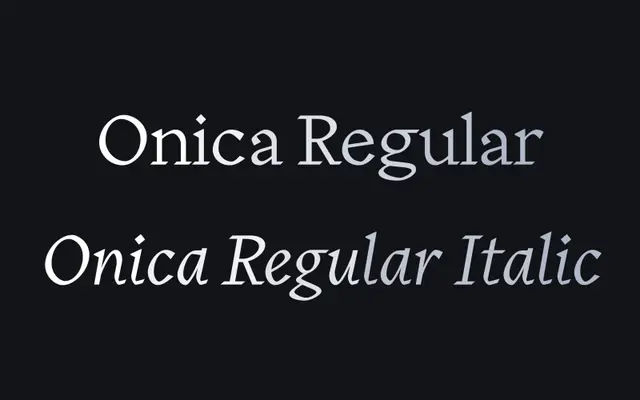
Onica specimen from The Designers Foundry
A calligraphic serif by Sanghyun Park that fuses asymmetrical slab serifs, sharp terminals and imperfect curves into a two-weight family.
Designed by Seoul-based Sanghyun Park, Onica is described as a chimera built on a calligraphic structural base, combining thick sharp terminals, asymmetrical slab serifs and intentionally imperfect curves. The contrast between these elements gives it a striking quality in display settings whilst retaining rhythm and texture at body sizes. The family is currently limited to Regular and Regular Italic, with 673 glyphs covering an extensive range of Latin-script languages.
Onica is built on a calligraphic structural base with asymmetrical slab serifs, sharp thick terminals and imperfect curves, placing it between a calligraphic serif and a slab serif with distinctive display characteristics.